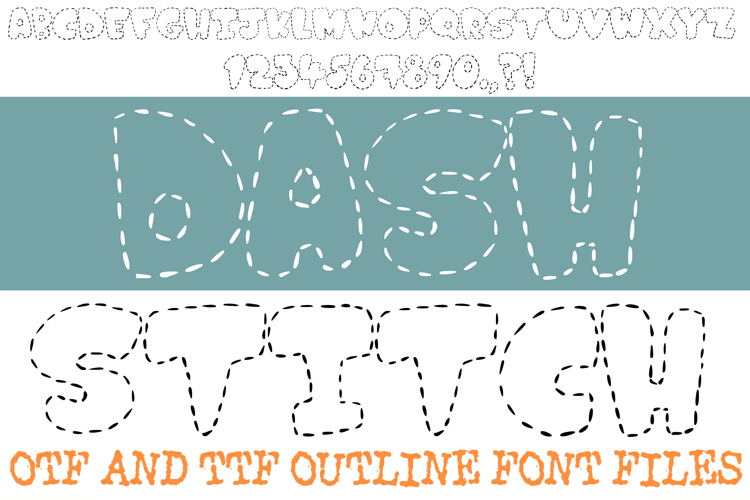
Stitch together a beautifully cozy, hand-crafted aesthetic with the Dash Stitch Font. This charmingly tactile display typeface features bold, chunky, and rounded bubble letterforms constructed entirely out of a clean dashed outline. Designed to perfectly mimic a classic hand-sewn running stitch, basting stitch, or sewing machine line, this alphabet captures the warm and inviting spirit of traditional fabric needlework, patchwork quilting, and cozy textiles. It is an exceptional typographic choice for headlines, craft projects, and designs that need a lighthearted, homespun feel.
Delivered as installable OTF and TTF font files, this detailed outline structure offers incredible creative flexibility. It serves as an excellent resource for a designer who wants to overlay the stitched paths onto colorful fabric textures, drop custom solid colors inside the characters, or contrast the dashed linework against vibrant, solid backgrounds. The clean vector paths scale flawlessly across all major design and cutting software, ensuring sharp, professional results for digital templates and physical print media.
Ideal For Creative Merch & DIY
Custom Merchandise: Design adorable, cozy typography layouts for children's fashion t-shirts, canvas hobby tote bags, and custom screen-printed hoodies.
Die-Cut Stickers: Create sweet, textured-look vinyl decals for sewing machine covers, water bottles, planner spreads, and scrapbooks.
Theme Stationery: Perfect for craft fair flyers, quilting bee newsletters, rustic holiday greeting cards, or sewing-themed birthday invitations.
Artisan Branding: Elevate logos, business cards, and social media packaging for independent fabric shops, embroidery boutiques, custom tailoring studios, or handmade toy creators.